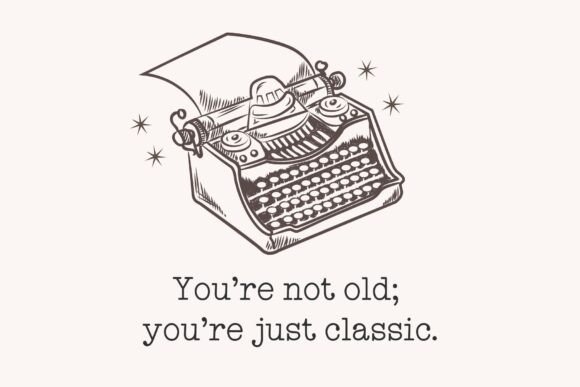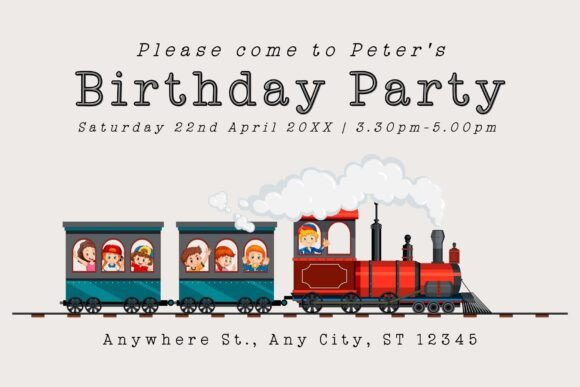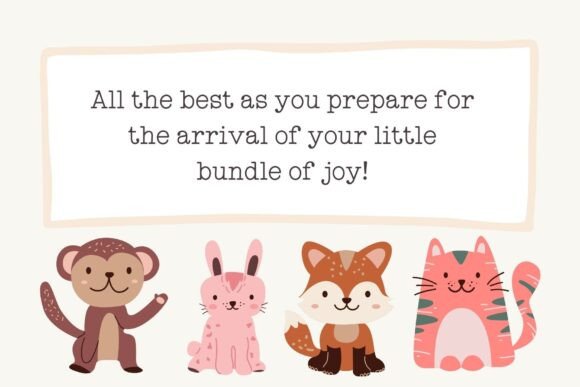
The Designer’s Delight: Fox Machine Font
I’ll never forget the time I was working on a branding project for a vintage-inspired coffee shop. I had a clear vision of a warm, nostalgic feel, but I just couldn’t find the right font to tie everything together. The client wanted something that felt both classic and modern, with a touch of playfulness. That’s when I stumbled upon the Fox Machine font. It was like a breath of fresh air – the perfect blend of stylish, playful, and versatile. In this article, I’ll share my experience with Fox Machine, its features, and how to make the most of it in your designs.
A Closer Look at Fox Machine
Fox Machine is a stylish and playful slab serif font with a touch of vintage charm. It comes in two distinct styles: Regular and Slant, allowing for versatile design applications. The bold yet soft letterforms give it a friendly yet strong character, making it perfect for branding, headlines, posters, logos, and editorial designs.
What I Love About Fox Machine
- ✨ Unique Vintage Charm: Fox Machine has a typewriter-inspired look that adds a touch of nostalgia to any design.
- ✅ Versatility: With two styles (Regular and Slant), you can experiment with different looks and applications.
- 💡 Ease of Use: The font is easy to read and works well in both digital and print formats.
- 🎨 Creative Freedom: Fox Machine’s smooth curves and balanced design make it perfect for a wide range of creative projects.
While Fox Machine is an excellent font, there are a few things to keep in mind:
- ⚠️ Limited Ligatures: Fox Machine doesn’t have an extensive range of ligatures, which might be a consideration for certain projects.
- 🤔 Not Ideal for Body Text: Due to its bold nature, Fox Machine works best for headlines and titles rather than body text.
The Story Behind Fox Machine
Fox Machine was designed with the goal of creating a font that balances classic and modern aesthetics. The designer aimed to create a font that would evoke a sense of nostalgia while still feeling fresh and contemporary. The result is a font that’s perfect for a wide range of creative projects, from branding and advertising to editorial design and packaging.
| Font Name | Fox Machine Font |
| Author | Fox7 |
| What type of projects is Fox Machine best suited for? | Fox Machine is perfect for branding, headlines, posters, logos, and editorial designs that require a touch of vintage charm and playfulness. |
| Is Fox Machine suitable for body text? | No, Fox Machine works best for headlines and titles rather than body text due to its bold nature. |
| Does Fox Machine come with any special features? | Yes, Fox Machine comes with OpenType features, glyphs, and stylistic alternates that allow for creative experimentation and customization. |